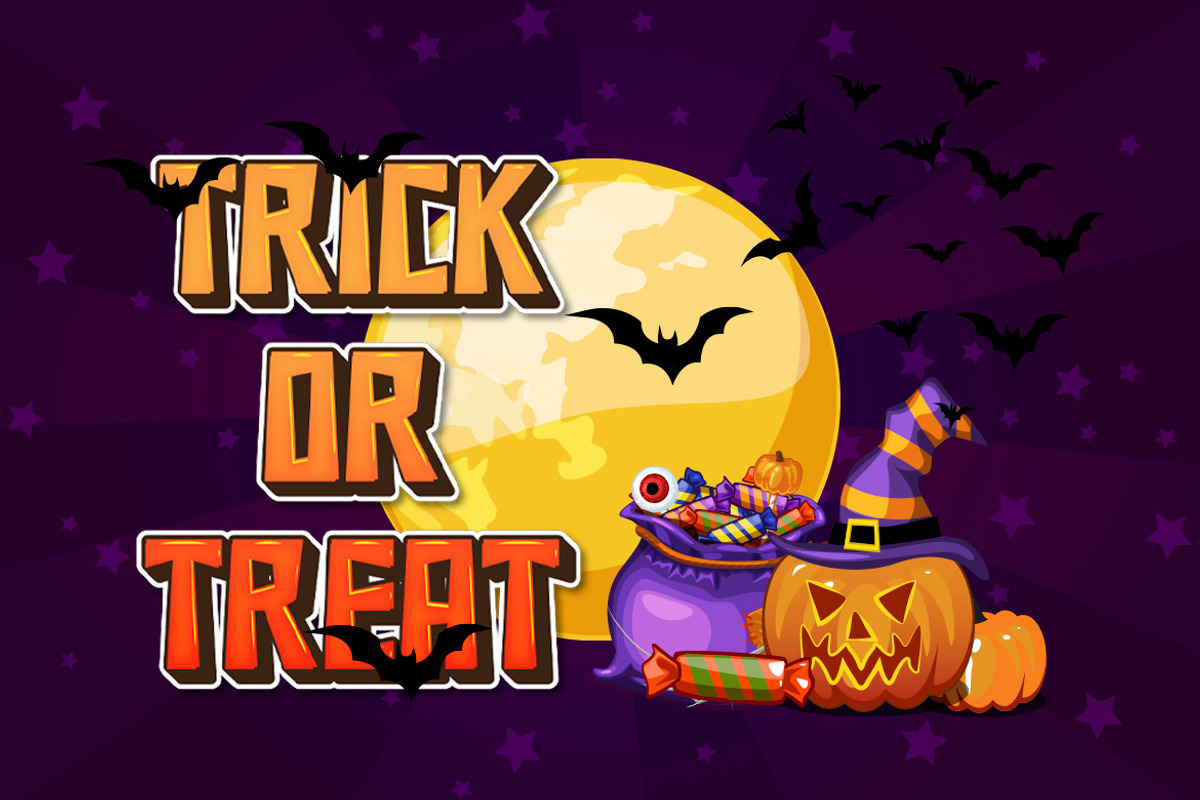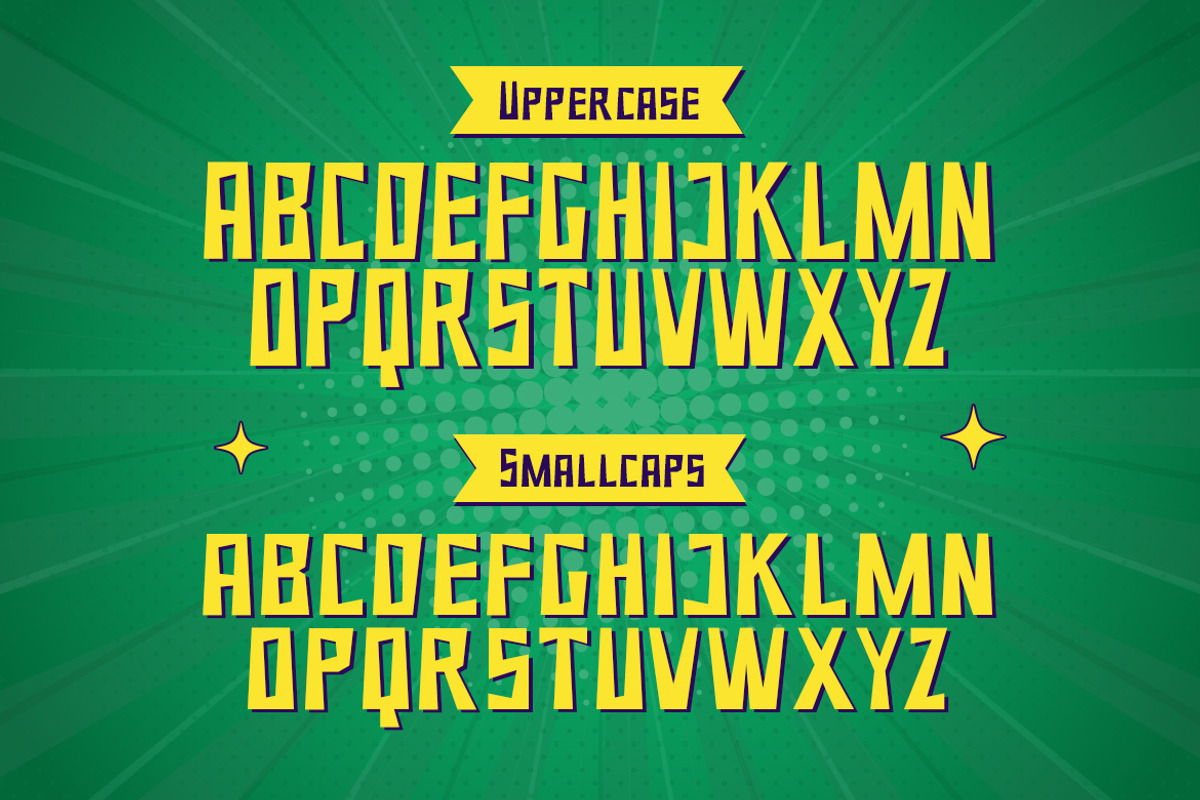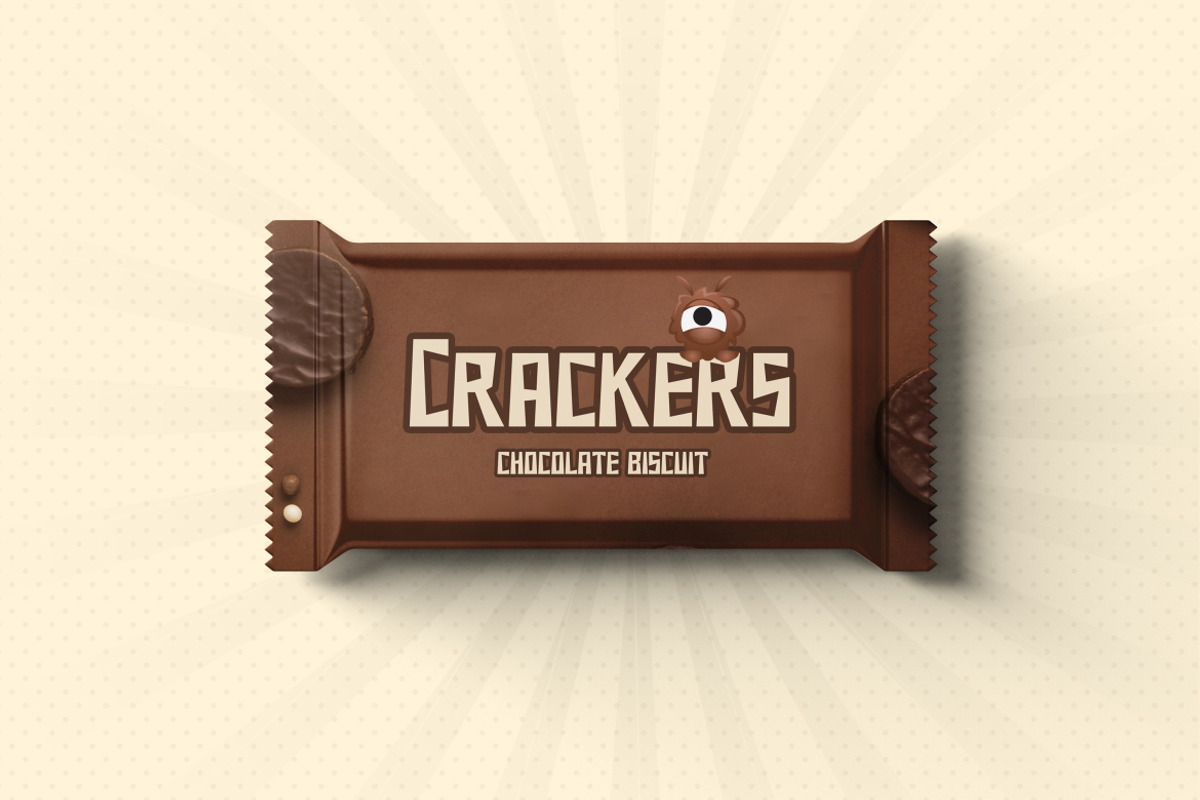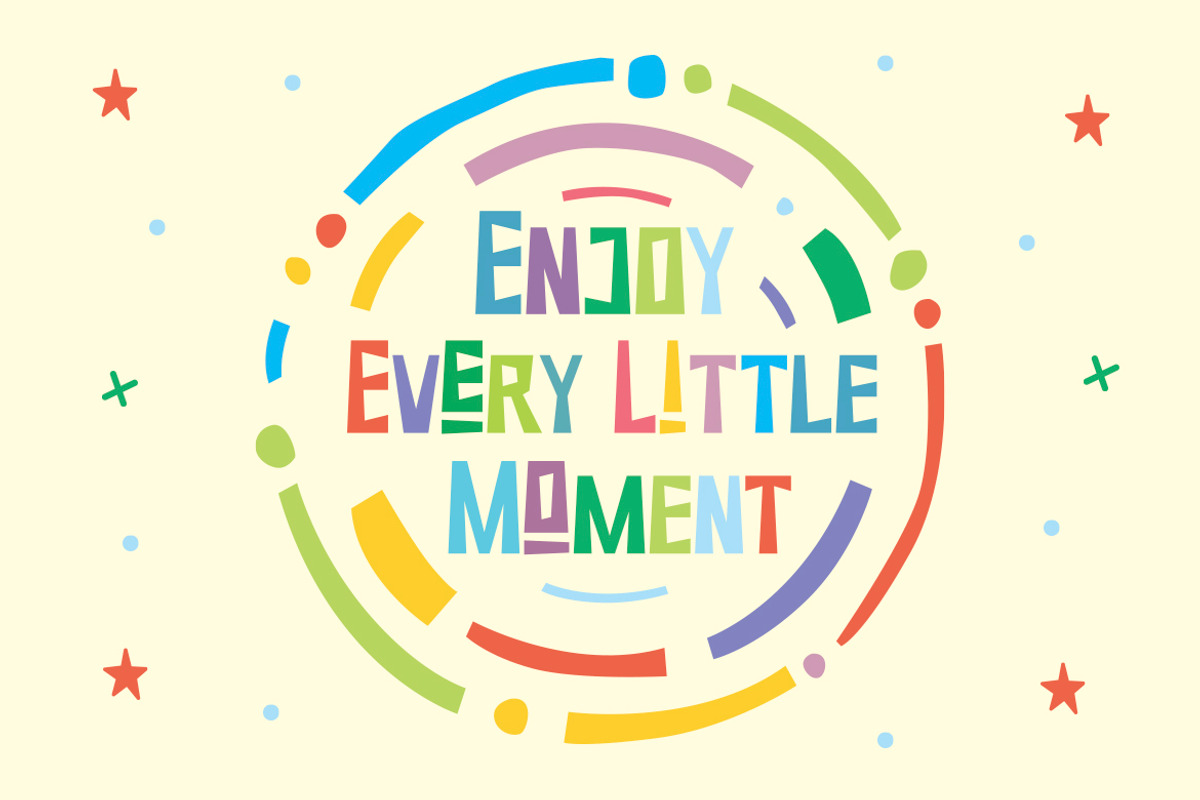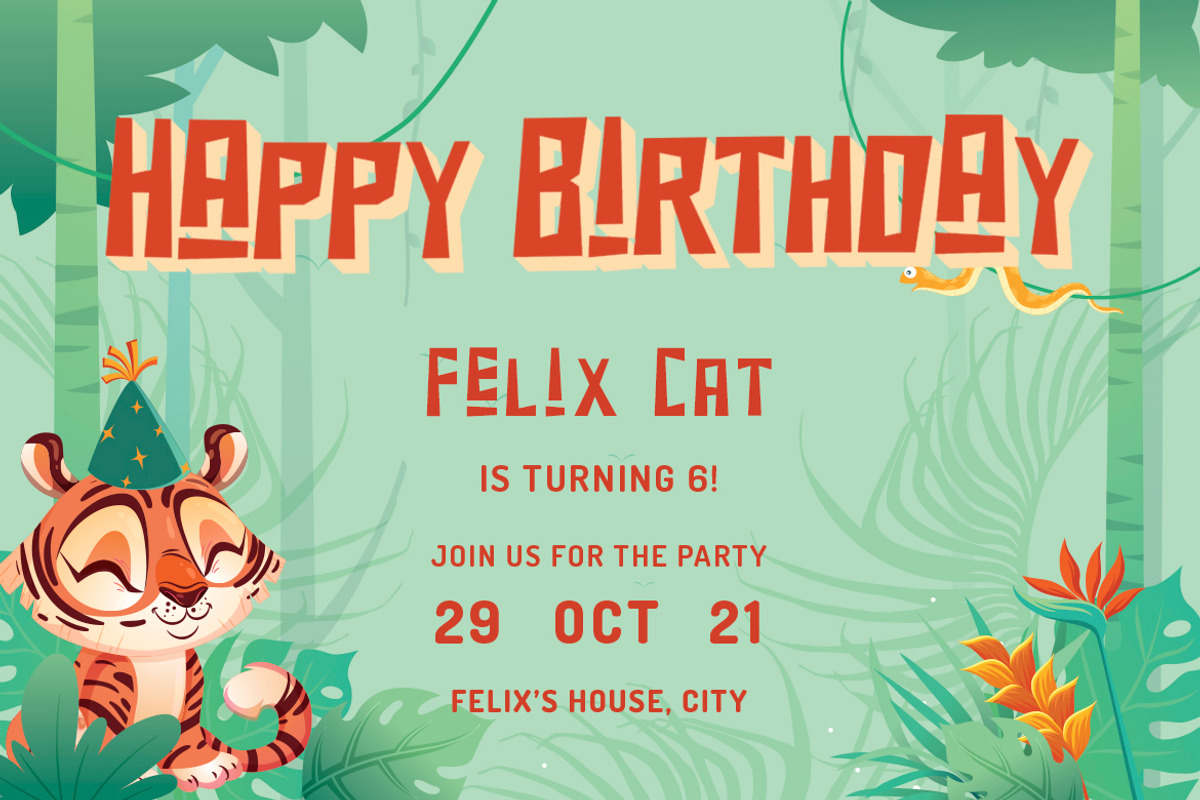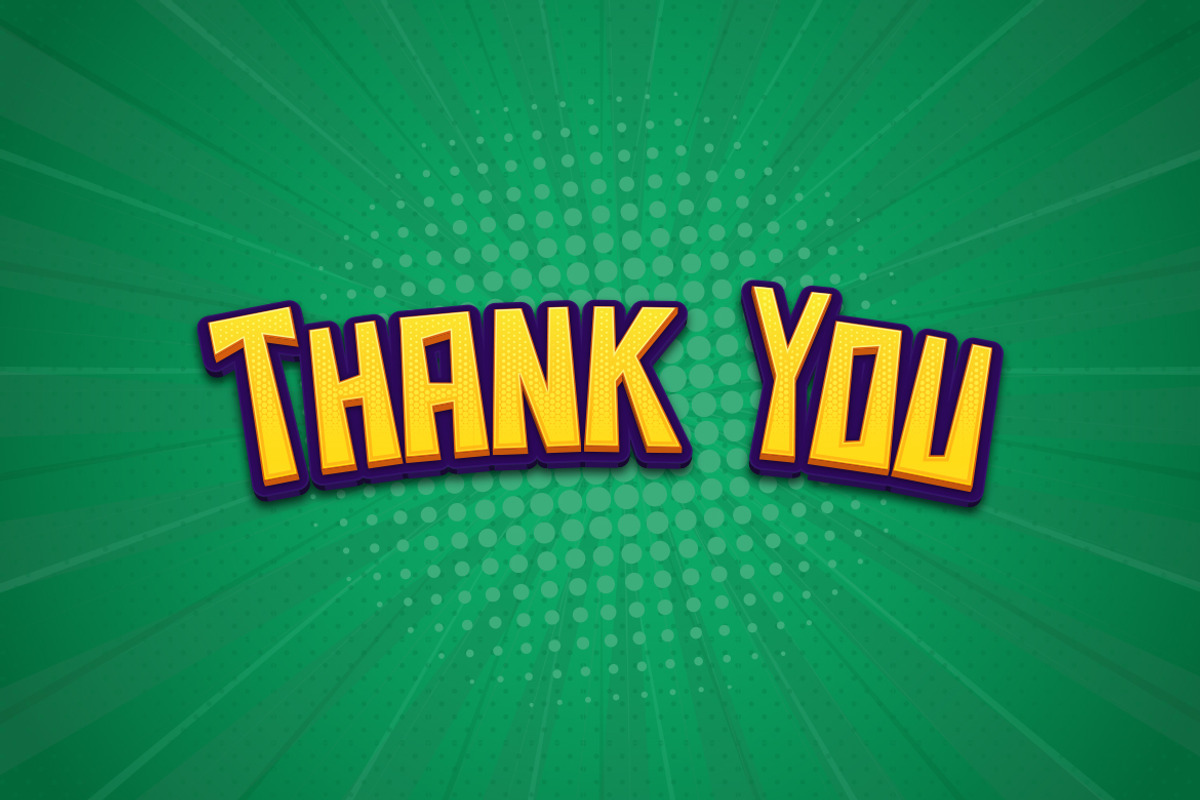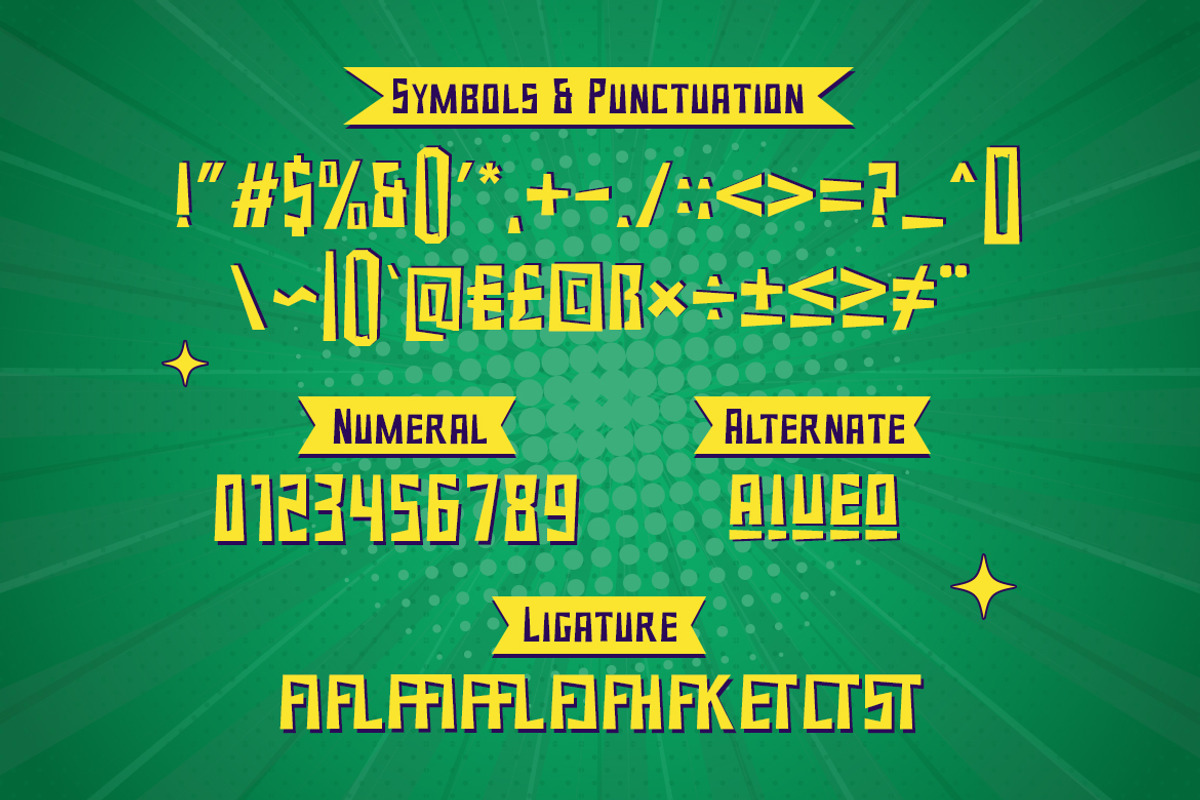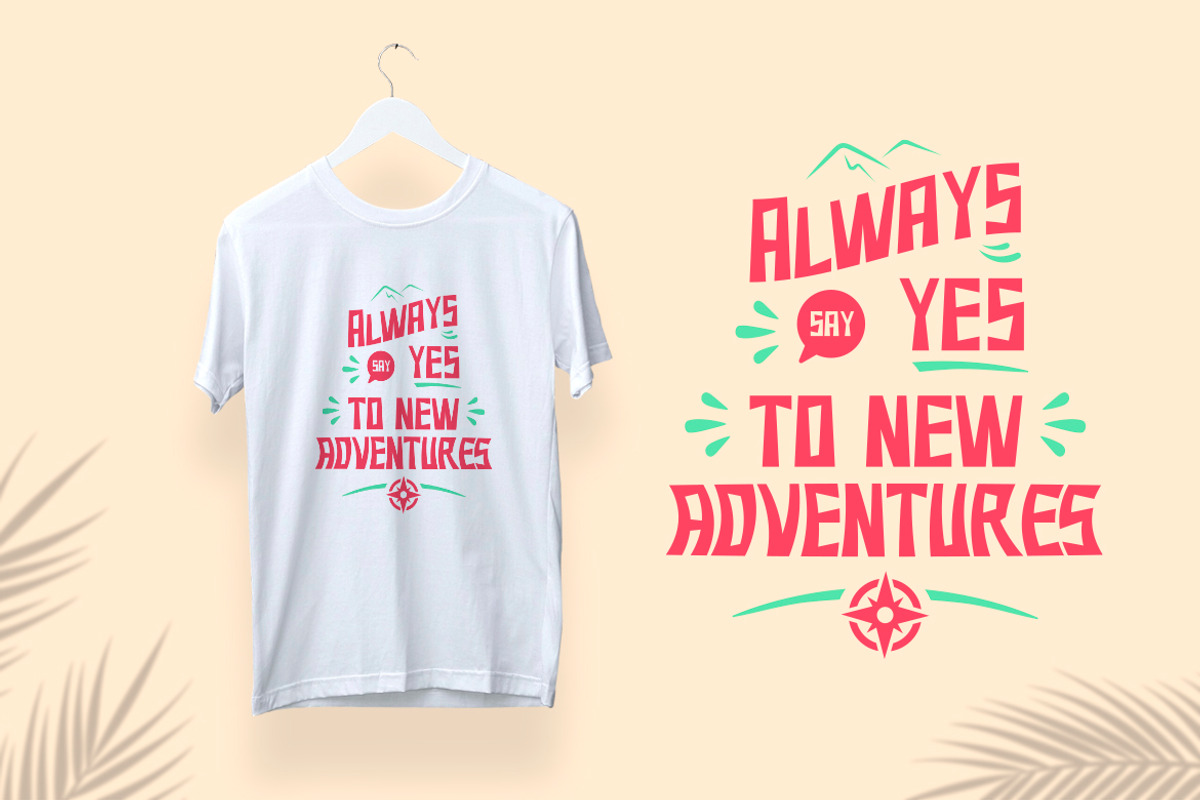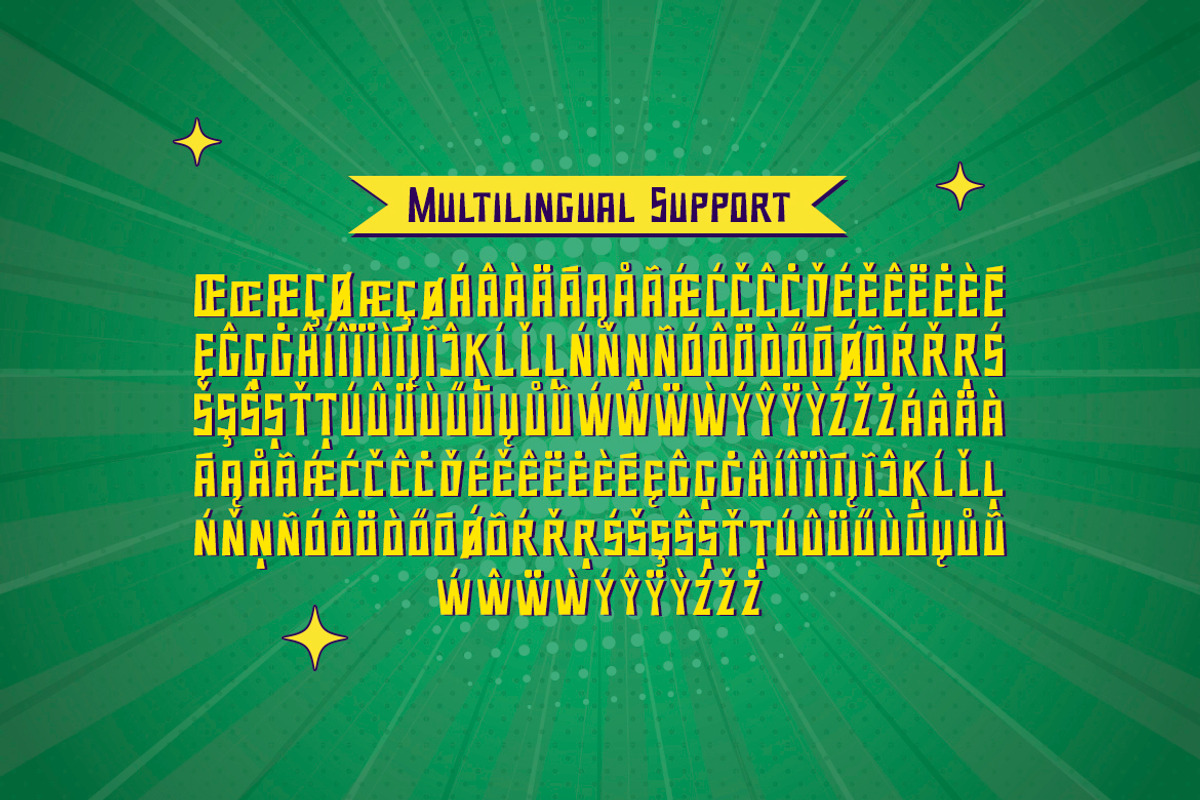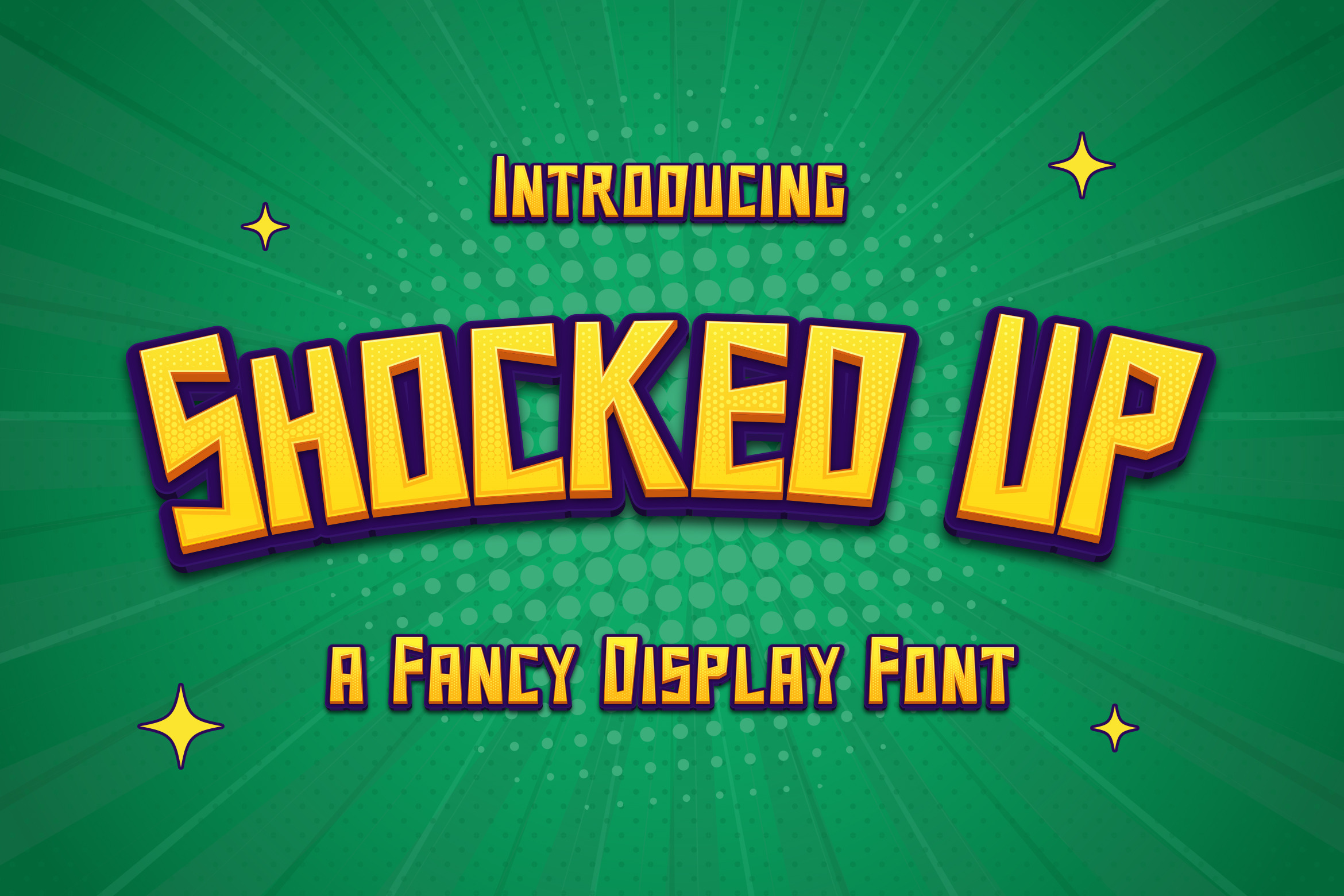
Shocked Up - Display Font
Shocked Up is a cute and fancy display font. It embodies playfulness and authenticity and is the perfect choice for any children activity, game font, party invitation, or school project. Add this chunky lettered font to your designs and notice how it makes them come alive!
- Small Caps
- Symbols & Punctuation
- Numeral